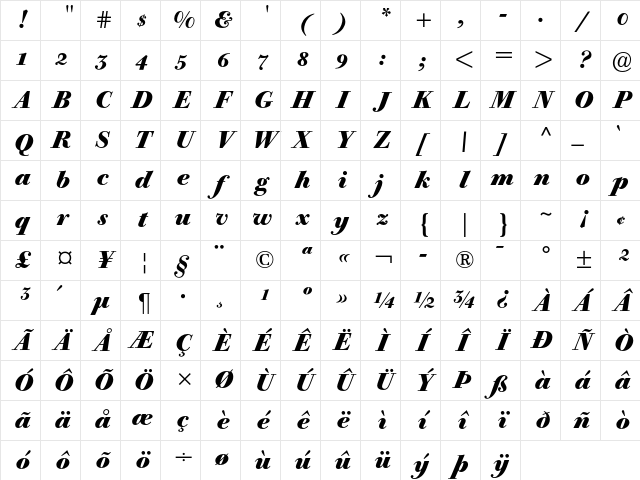
Bodoni Old Face BE Bold Italic OsF
Complete Bodoni Old Face BE Bold Italic OsF glyph index. Displaying only characters natively supported by Bodoni Old Face BE Bold Italic OsF font.
Design Context for Bodoni Old Face BE
Bodoni Old Face BE is a composed and adaptable typeface that performs quietly and consistently across a wide range of design contexts. The slanted form adds forward momentum and visual energy. Its bold stroke weight gives it real presence on the page.
Pro Tip: Use Bodoni Old Face BE for emphasis, pull quotes, and subheadings where its slanted energy can add rhythm to the layout.